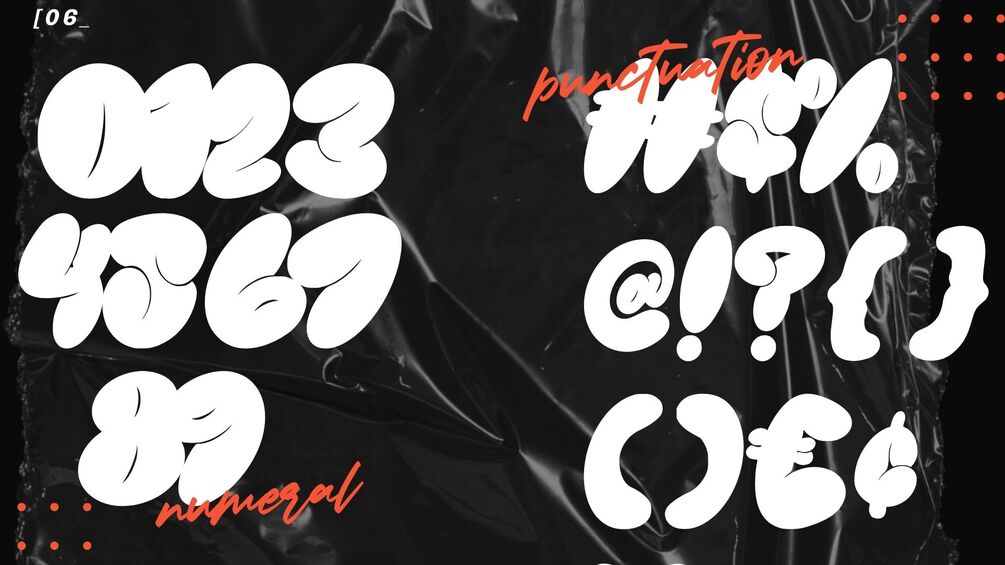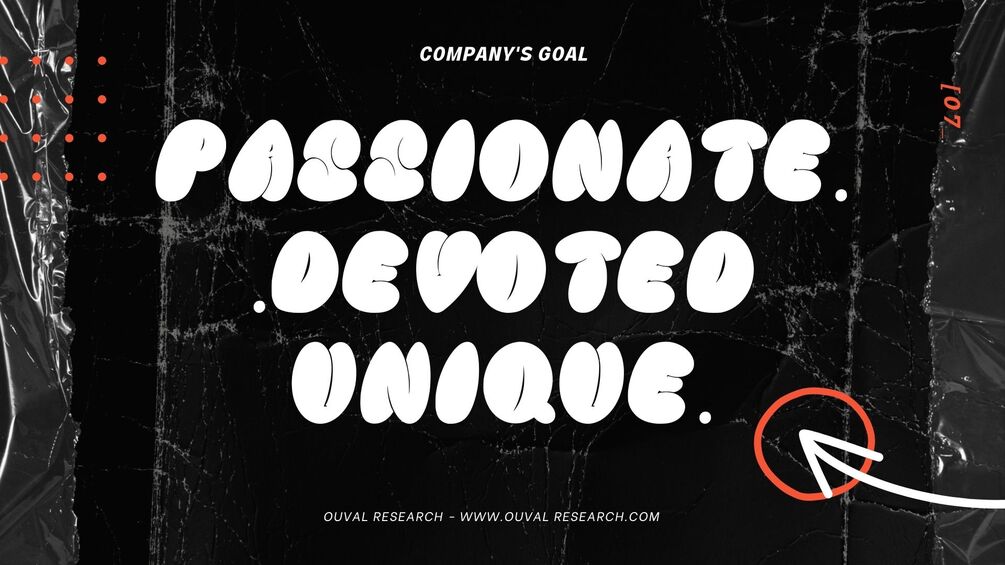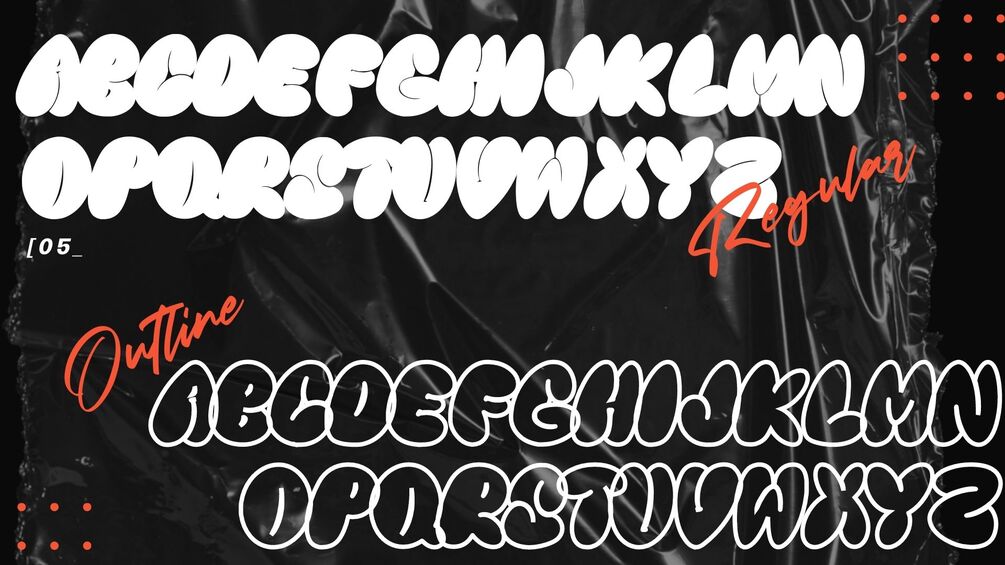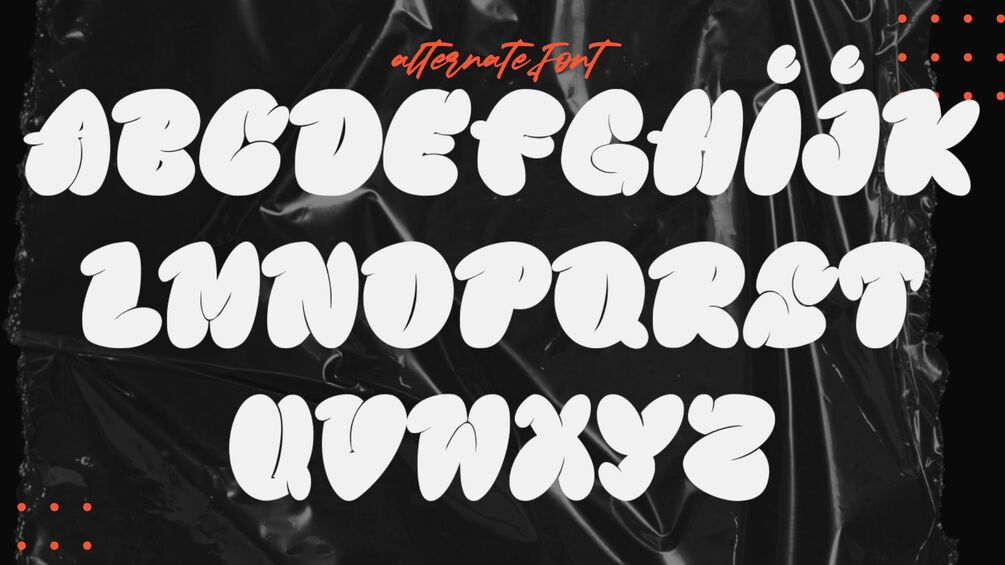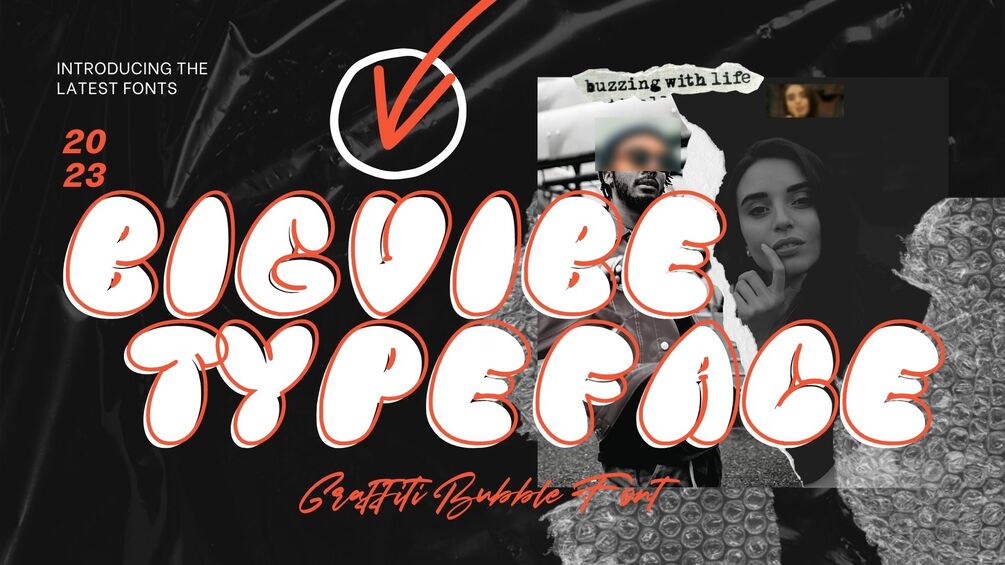
Big Vibe - Display Font
Big Vibe - Display Font is a graffiti display font . Big Vibeis a free-style font that has the characteristics of street art that shows freedom and is filled with unique characters to make your projects stand out.